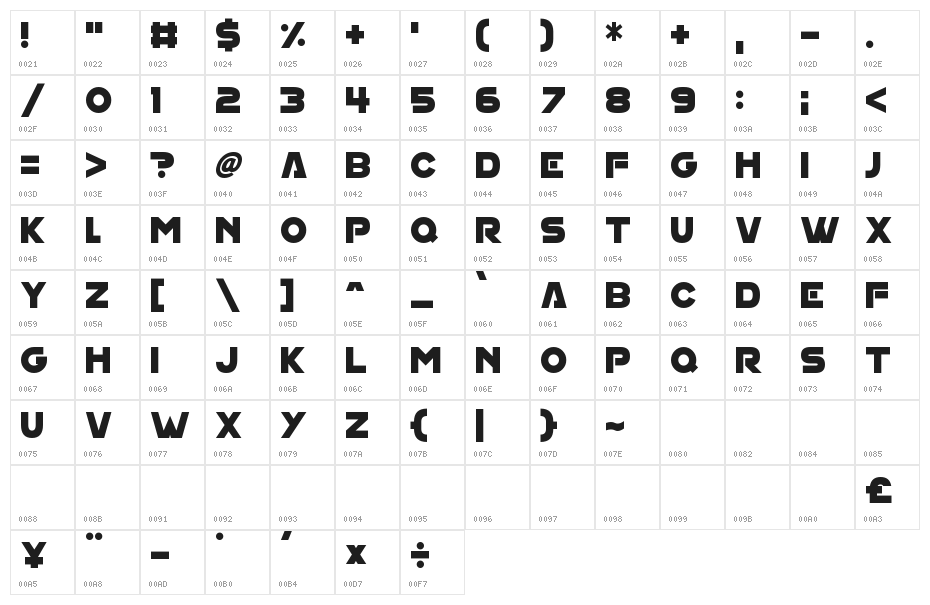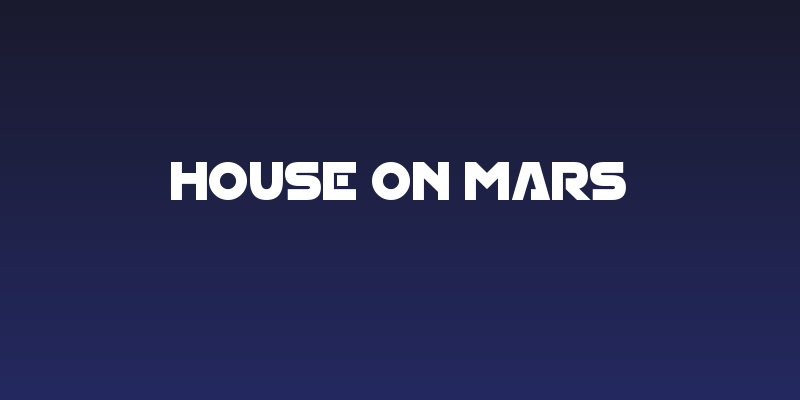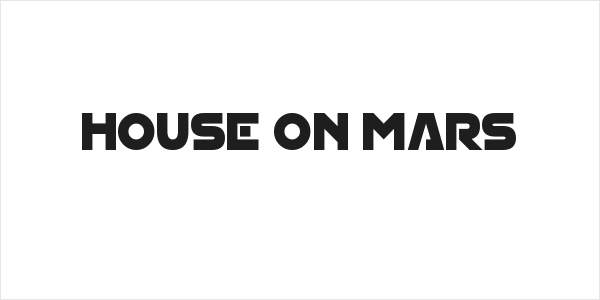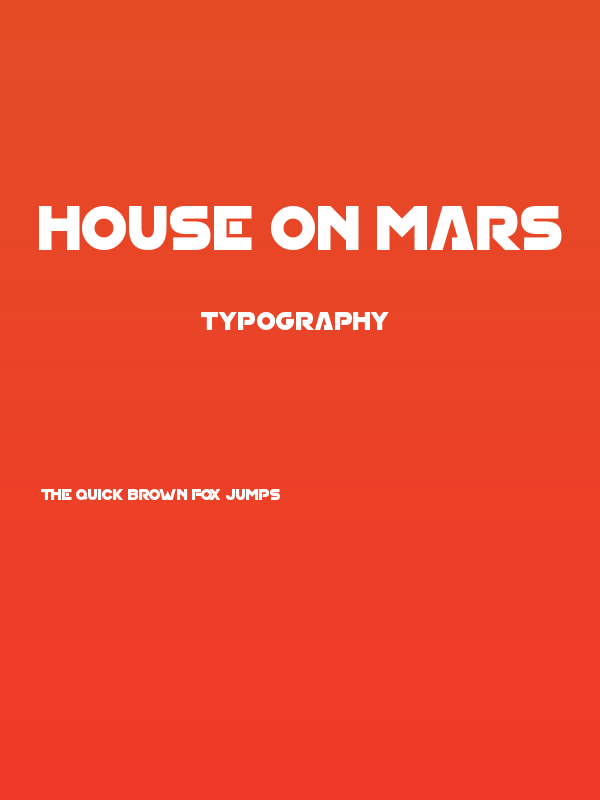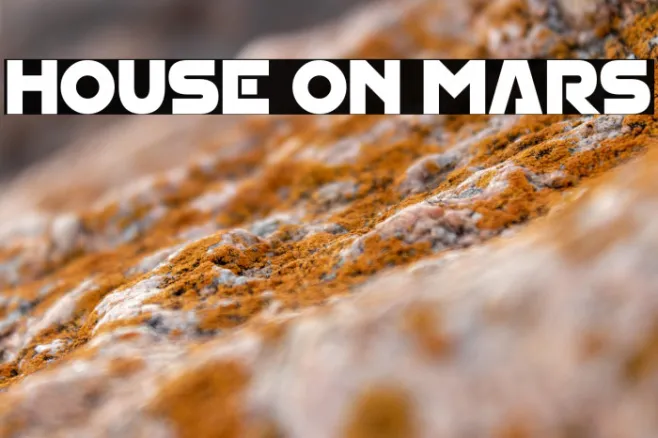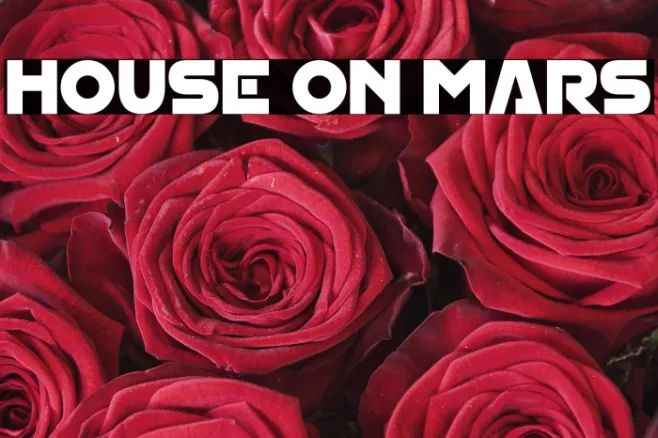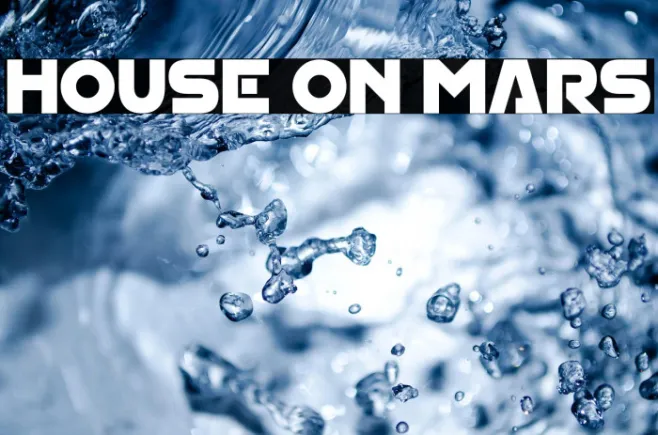
House On Mars Font
House On Mars Description
This font features a bold and futuristic design, characterized by its geometric shapes and sharp angles. The uppercase letters are distinct with a blocky appearance, while the numbers and special characters maintain a consistent style that complements the alphabet. The font's structure is solid and impactful, making it ideal for attention-grabbing designs. Its unique style is reminiscent of sci-fi themes, with a modern twist that makes it suitable for contemporary projects. The consistent weight and width across characters ensure a uniform look, enhancing its visual appeal.
| Proposed Projects | Ideal for sci-fi themed posters, video game titles, tech branding, and futuristic advertisements. |